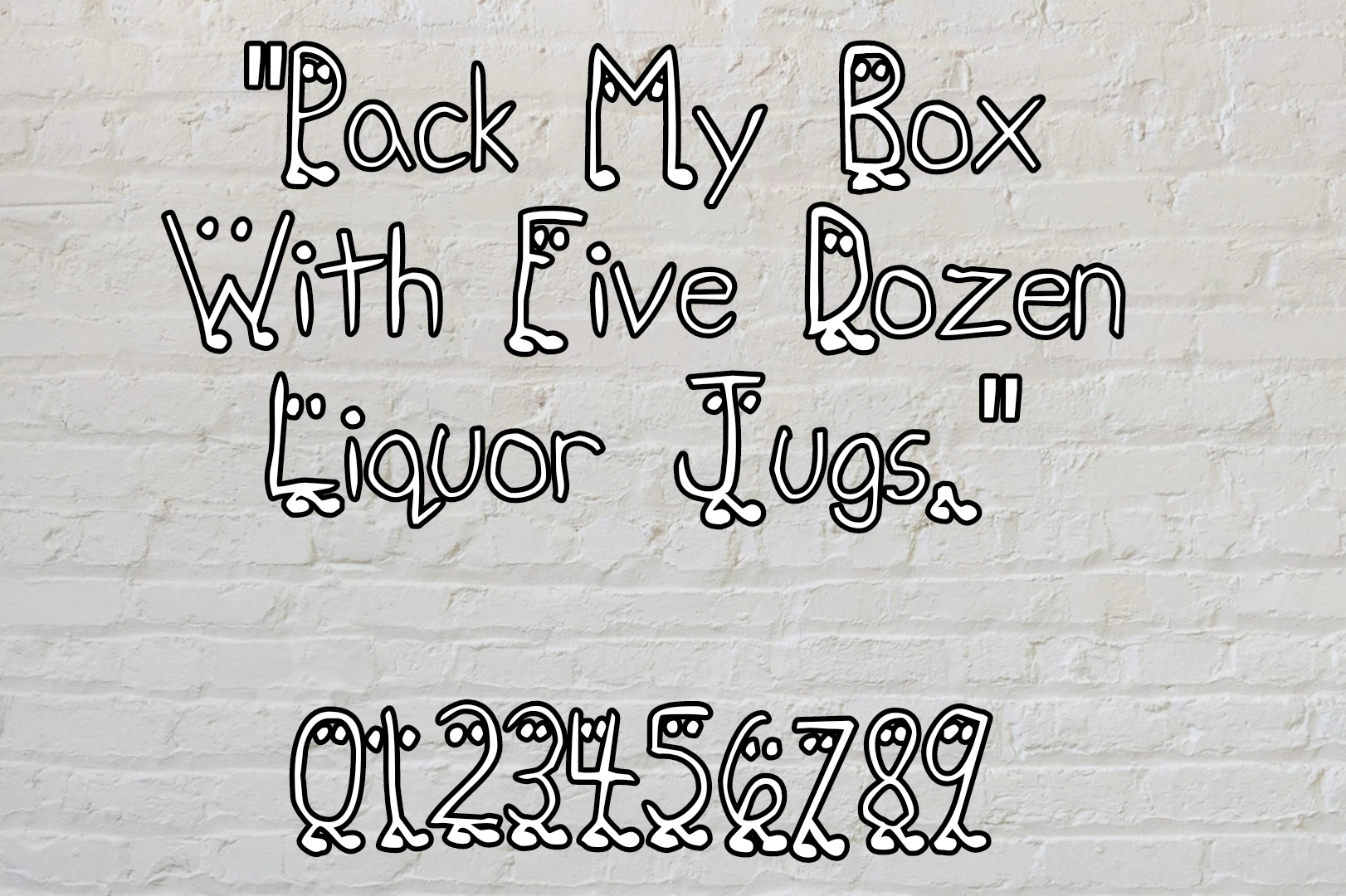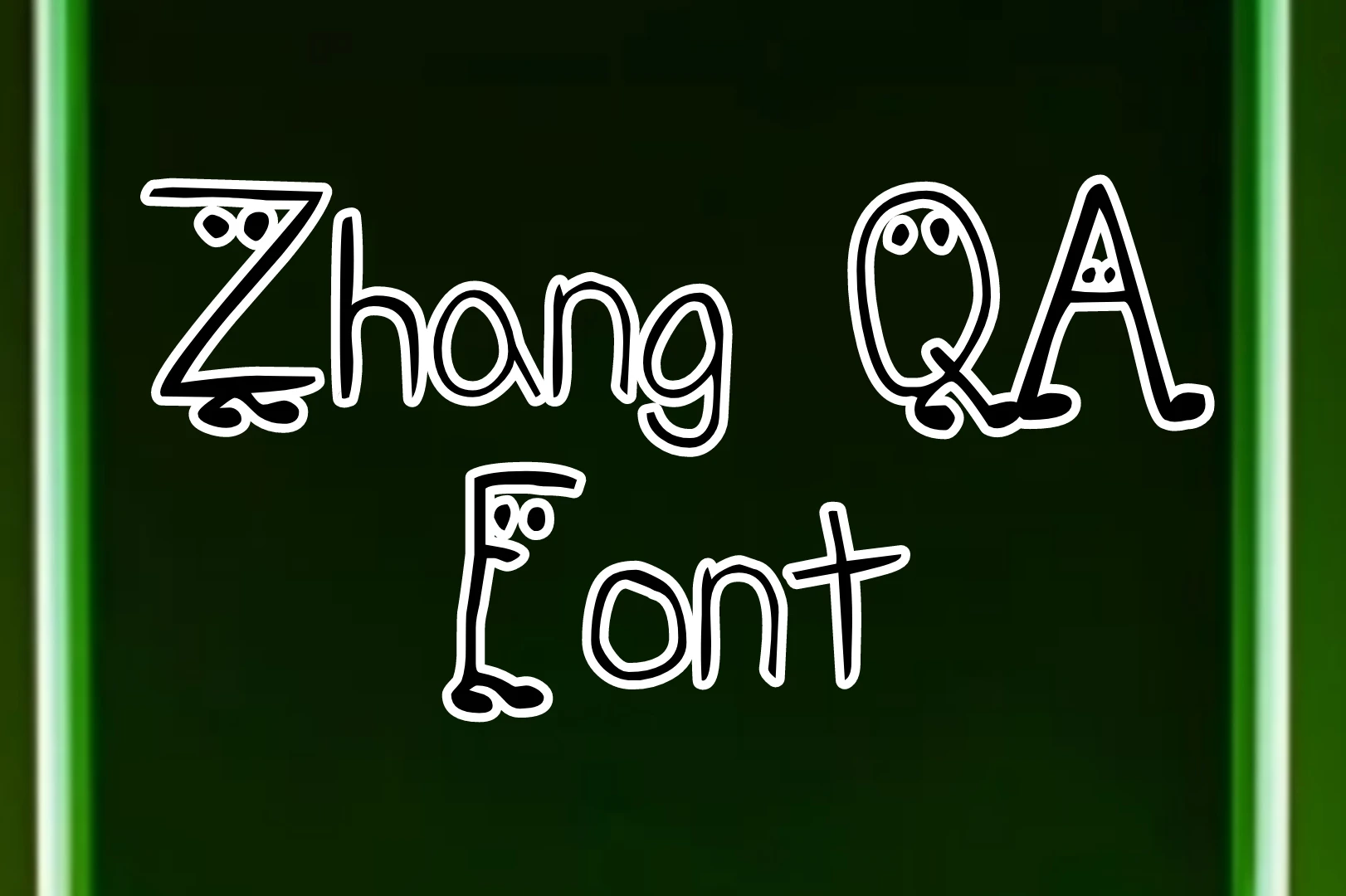
About Zhang QA Font
The Zhang QA font was designed by Unauthorized Type, a graphic designer, and typographer based in China. This font falls under the category of the fancy texture family and includes several styles, including regular, bold, and light. The font has a clean and minimalistic look with a stylish structure that adds a touch of sophistication to any design.
This font includes a wide range of characters, including uppercase and lowercase letters, numerals, and punctuation marks. It has many similar fonts are available on this site, the closest font to this texture is squeal piggy font.
The font’s legibility and modern design make it an excellent choice for digital and print media, such as website design, mobile applications, and editorial projects. You will have to copy and paste your text on its generator tool and achieve advanced results.
Uses of Zhang QA Font
It is commonly used in various digital media, such as websites, mobile applications, and e-learning platforms, to create a visually appealing and easy-to-read interface. This font can also be used in a range of other fields, such as branding, advertising, and editorial design.
Its modern characters are excellent for creating visual identities, logos, and packaging design. The font’s versatility also makes it a popular choice for use in headings, titles, and movies.
You may combine this gorgeous typeface with the chiller font. Its bold weights and tall x-height make it a great choice for creating attention-grabbing signage. It can also be used in product packaging to create a stunning and modern design that enhances the product’s appeal.
What is the Zhang QA Font?
It is a versatile and modern typeface known for its clean lines and readability. It’s commonly used for both professional and creative projects, making it a popular choice among designers.
What makes the Zhang QA Font special?
It is renowned for its clarity and elegance, making it suitable for both body text and headlines. Its design strikes a perfect balance between modernity and readability.
Can I use Zhang QA Font in my logo design?
Are there different styles available for the Zhang QA Font?
What is the category of Zhang QA typeface?
This stunning texture lies in the classification of the Fancy family because of its classic styles and looks.